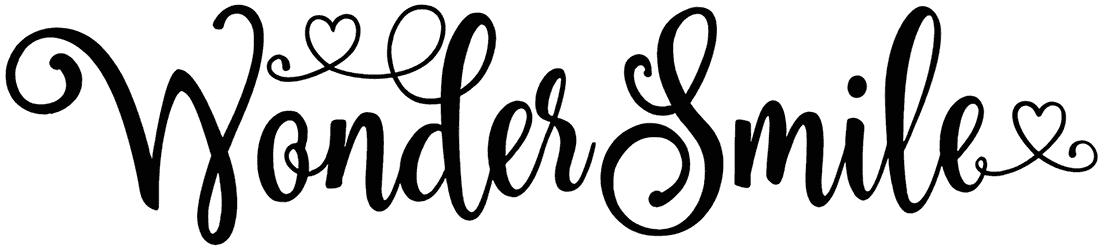
Wonder Smile Font
Wonder Smile is a fairytale font with smooth and professional curves that can turn any design into a highlighted artwork. This cursive font has four styles and can be a good complement to your collection of handwritten fonts.
So, if you are designing a logo or need an eye-catching wedding card, do not hesitate for a moment to download Wonder Smile. This font does not include numbers, but it has an aggressive look for any masterful design.
http://mn.sg/wonder-smileUse underscore _ before or after any letter to make cute heart decorations.
Example: _beauty_
Write # after any letter to make a swash.
Example: Wand#er